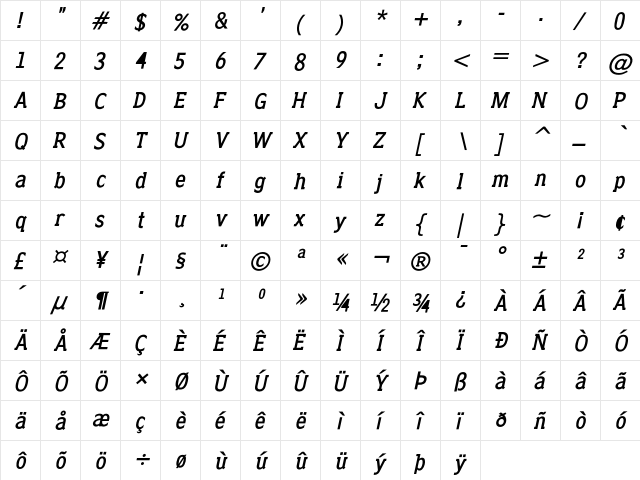
Clique SerifBoldOblique
Design Context for Clique Typeface
Clique carries the refined structure of traditional serif typography, with bracketed terminals and considered proportions that communicate credibility and craft. The dynamic lean of this cut emphasises speed and emphasis in any layout. Its bold stroke weight gives it real presence on the page.
Pro Tip: Set Clique with slightly loose tracking in headlines to let each letterform's detail read clearly at display sizes.